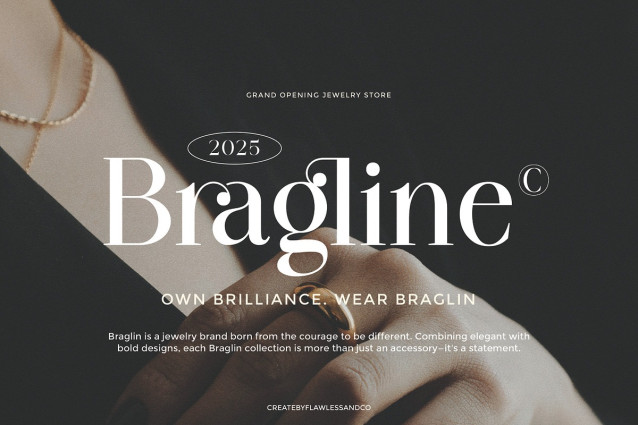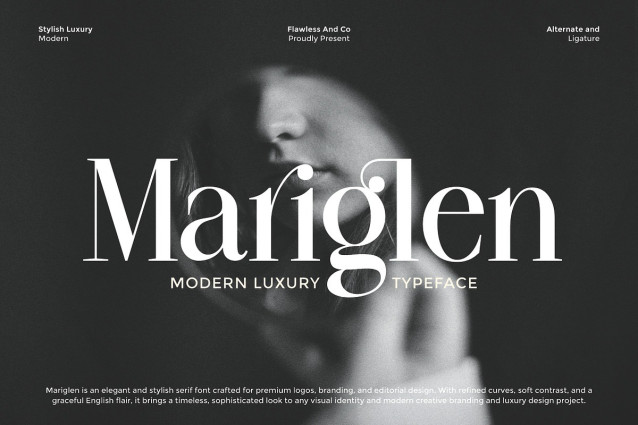
Mariglen Font
Mariglen Font is a modern and luxurious serif typeface designed for timeless elegance. With refined curves, high contrast, and graceful details, this font exudes sophistication while maintaining readability. Perfectly suited for premium branding, editorial design, fashion projects, and luxury logos, Mariglen adds a touch of modern classic beauty to any creative work. Whether used for magazines, product packaging, wedding invitations, or high-end brand identity, Mariglen elevates every design with a stylish and professional flair.